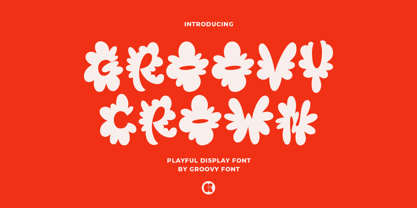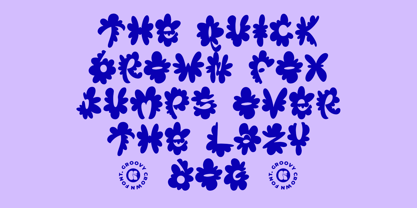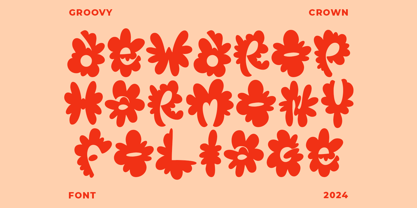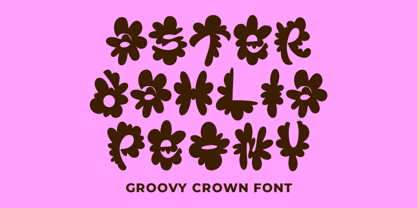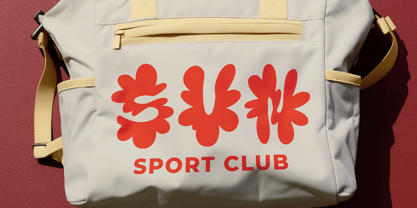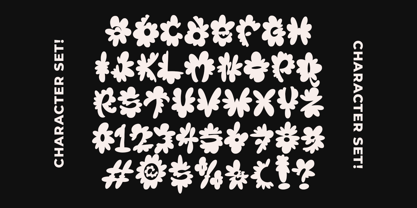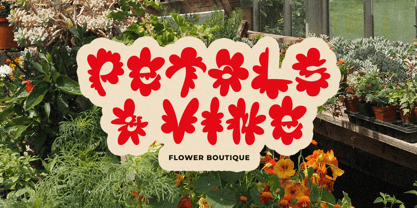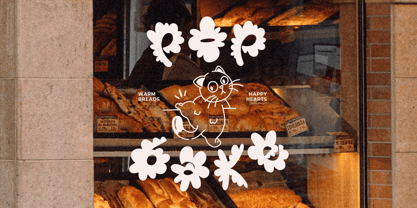
Gf Crown
by Groovy Font
The Gf Crown Font Family was designed by Ahmad Ginanjar Riyadi and published by Groovy Font. Gf Crown contains 1 styles.
Groovy Crown Playful Display Font is a unique and whimsical typeface created with hand-drawn sunflowers adorning each letter.
This font exudes a playful and fun vibe, making it perfect for designs that aim to convey a lighthearted and cheerful atmosphere.
The intricate details of the sunflowers add a touch of creativity and charm to this font, making it a standout choice for projects that require a lively and vibrant look.